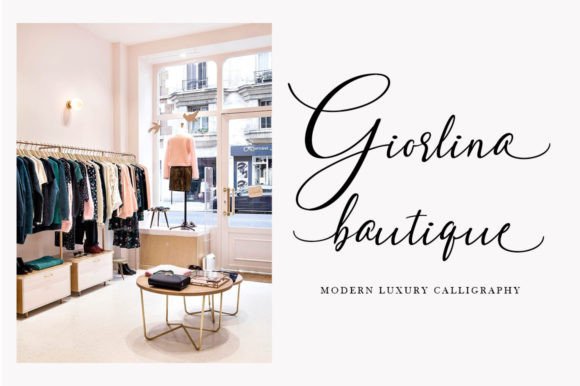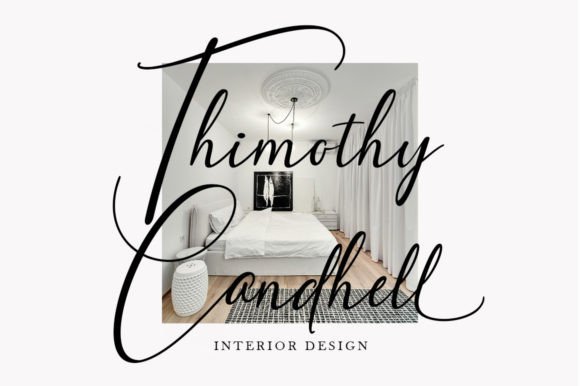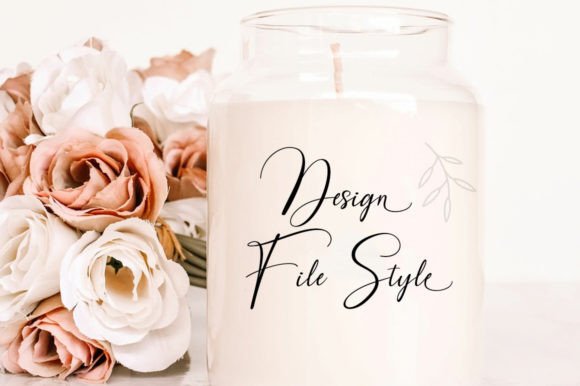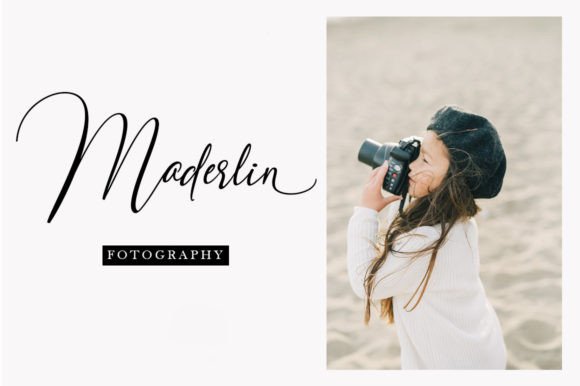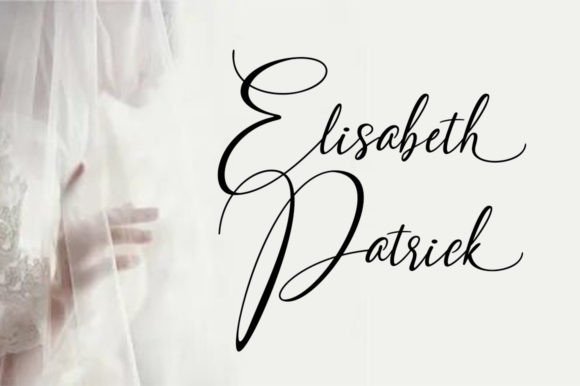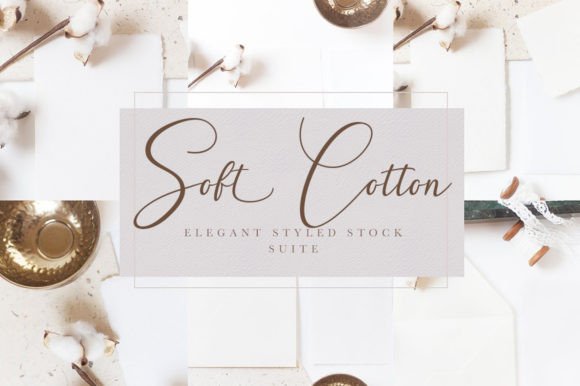
Amster Style Font: The Perfect Casual Handwritten Font for Designers and Crafters
Are you a designer or crafter looking for a unique and versatile font to elevate your creative projects? Look no further than Amster Style Font, a natural handwritten font that is perfect for a wide range of applications. In this article, we’ll explore the features and benefits of Amster Style Font, and show you how it can be used to add a personal touch to your designs.
What is Amster Style Font?
Amster Style Font is a casual handwritten font that is designed to look natural and effortless. With its flowing lines and subtle imperfections, this font is perfect for creating a personal and approachable feel in your designs. Whether you’re working on a logo, invitation, or social media post, Amster Style Font is sure to add a touch of warmth and personality to your project.
Key Features of Amster Style Font
- Natural Handwritten Look: Amster Style Font is designed to look like it was written by hand, with subtle imperfections and variations in line width.
- Perfect for a Wide Range of Applications: From logos and invitations to social media posts and product packaging, Amster Style Font is versatile enough to be used in almost any design project.
- Easily Readable: Despite its handwritten look, Amster Style Font is easy to read and understand, making it perfect for body text and captions.
- Highly Customizable: With Amster Style Font, you can adjust the size, color, and style to fit your design needs.
Use Cases for Amster Style Font
So, what can you use Amster Style Font for? The possibilities are endless! Here are a few ideas to get you started:
- Logos and Branding: Use Amster Style Font to create a unique and memorable logo for your business or brand.
- Invitations and Stationery: Add a personal touch to your invitations, greeting cards, and stationery with Amster Style Font.
- Wedding Designs: Make your wedding invitations, programs, and decorations truly special with Amster Style Font.
- Social Media Posts: Use Amster Style Font to add a personal touch to your social media posts and make them stand out.
- Product Packaging: Add a touch of personality to your product packaging with Amster Style Font.
Tips for Using Amster Style Font
Here are a few tips for getting the most out of Amster Style Font:
- Experiment with Different Sizes and Colors: Don’t be afraid to try out different sizes and colors of Amster Style Font to find the perfect look for your design.
- Pair with Other Fonts: Amster Style Font pairs well with a variety of other fonts, so don’t be afraid to experiment with different combinations.
- Use for Body Text: While Amster Style Font is perfect for headings and titles, it can also be used for body text to add a personal touch to your designs.
In conclusion, Amster Style Font is a versatile and natural handwritten font that is perfect for designers and crafters looking to add a personal touch to their designs. With its flowing lines, subtle imperfections, and highly customizable design, Amster Style Font is sure to become a favorite in your design toolkit. So why wait? Download Amster Style Font today and start creating beautiful, unique designs that stand out from the crowd!